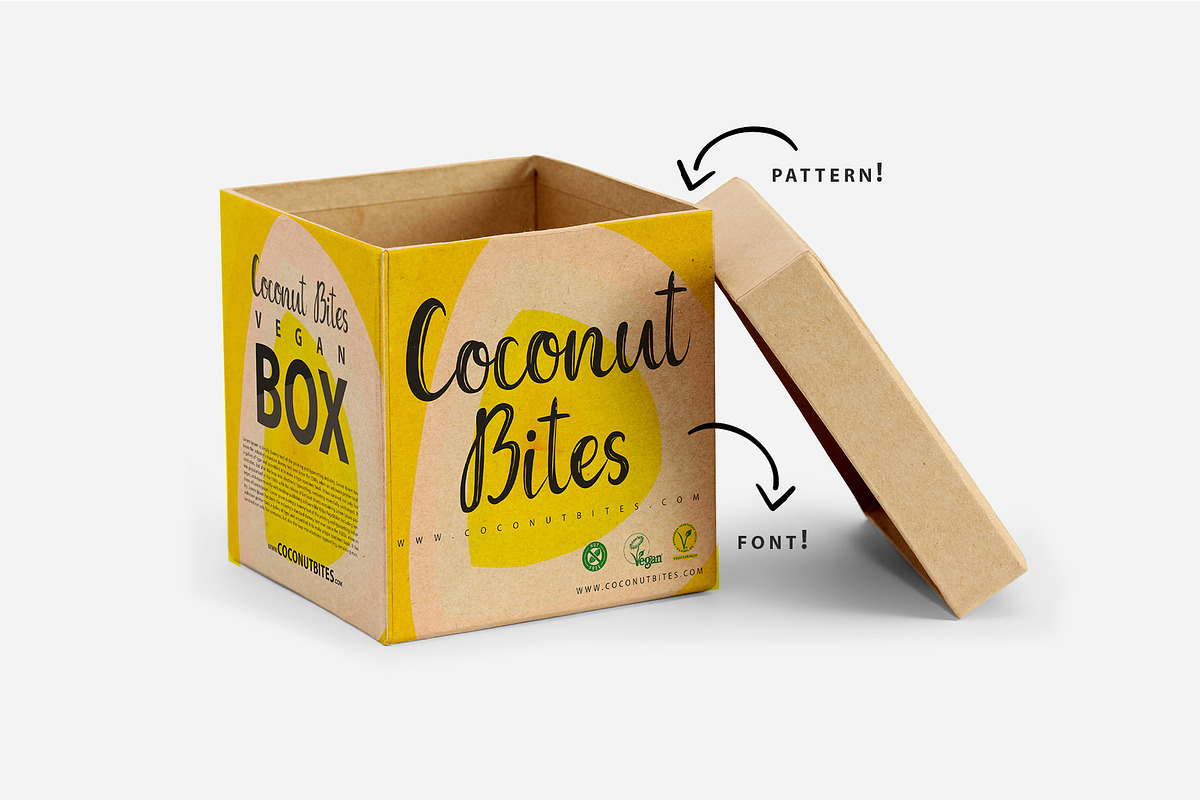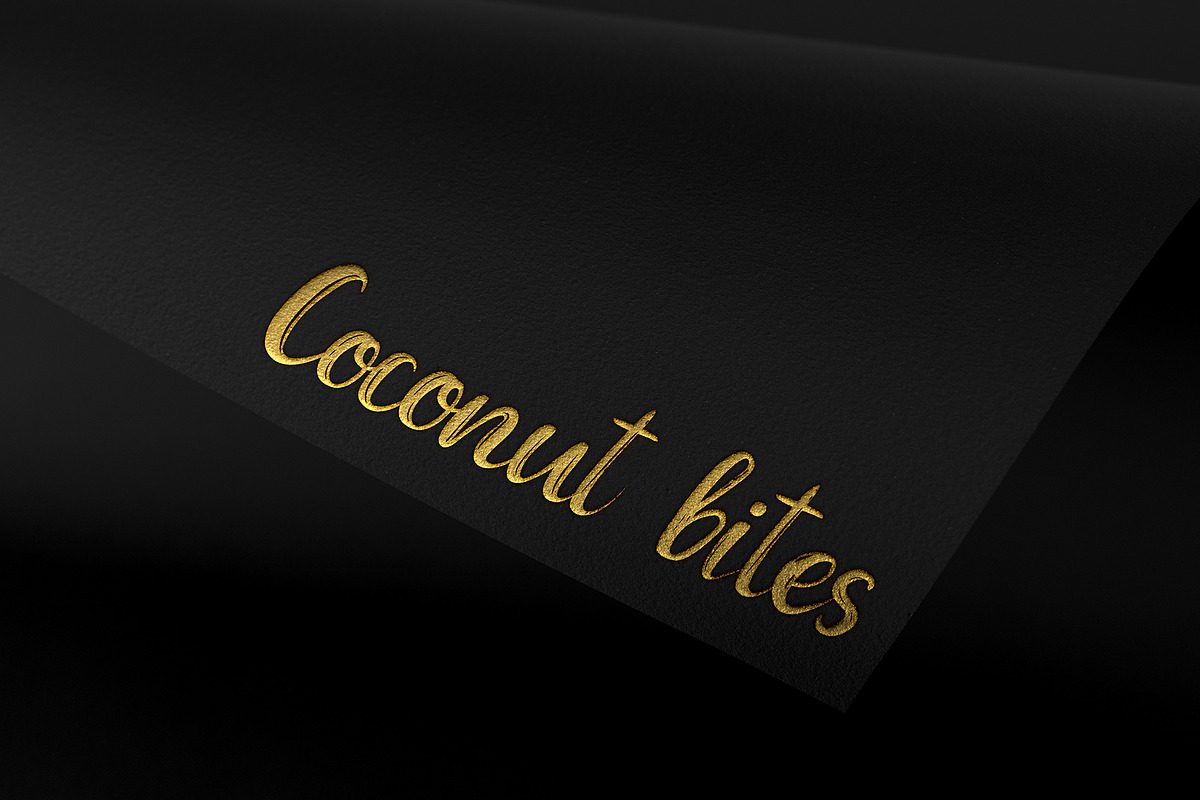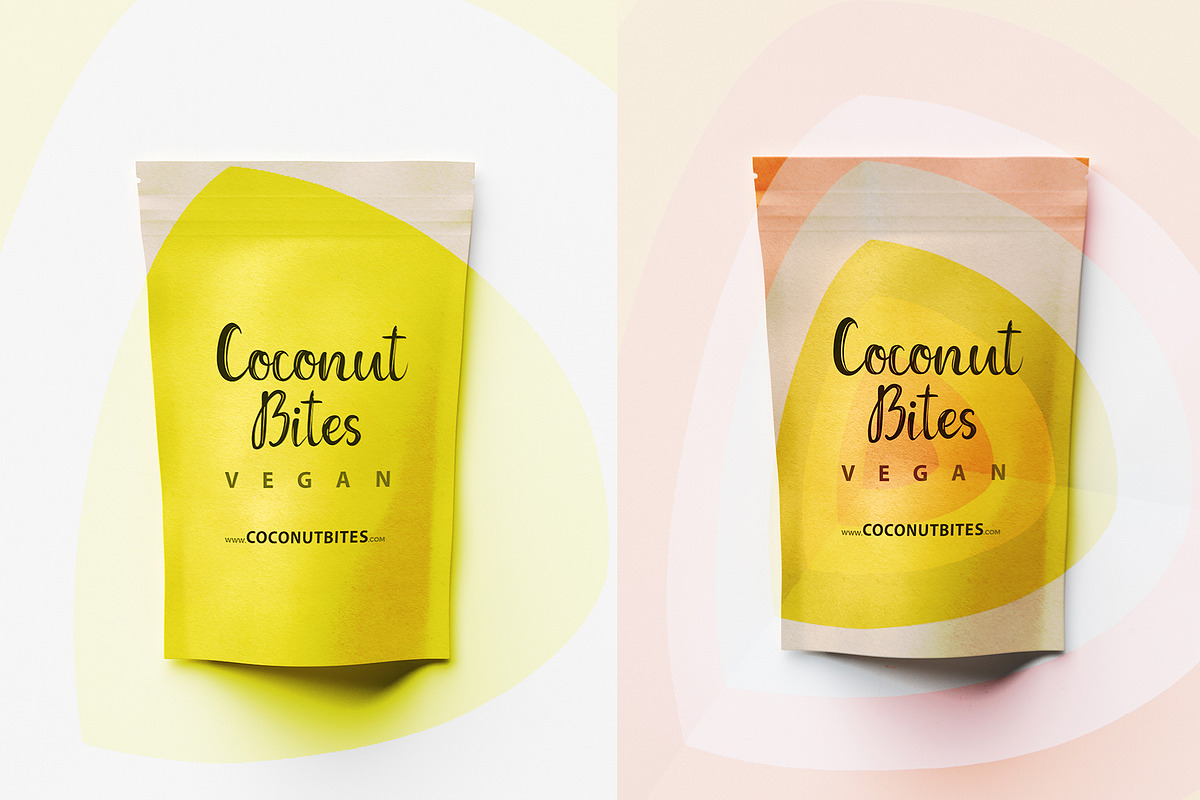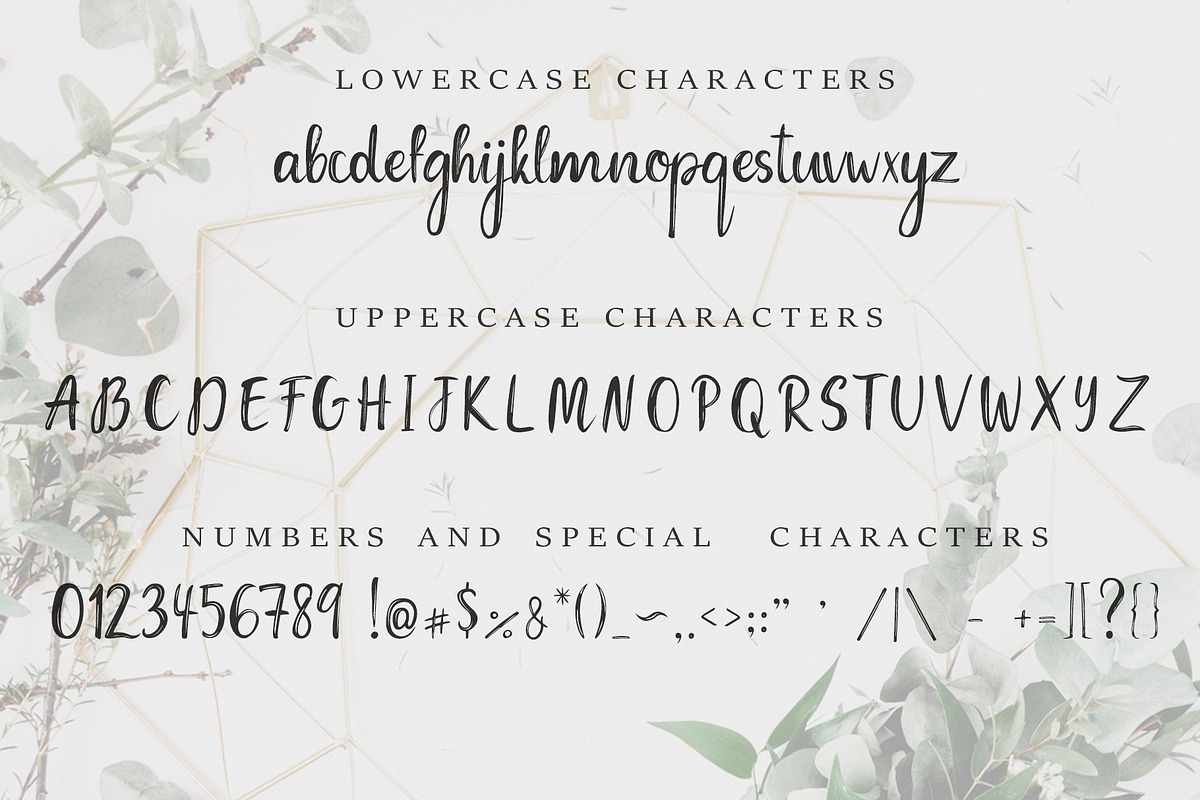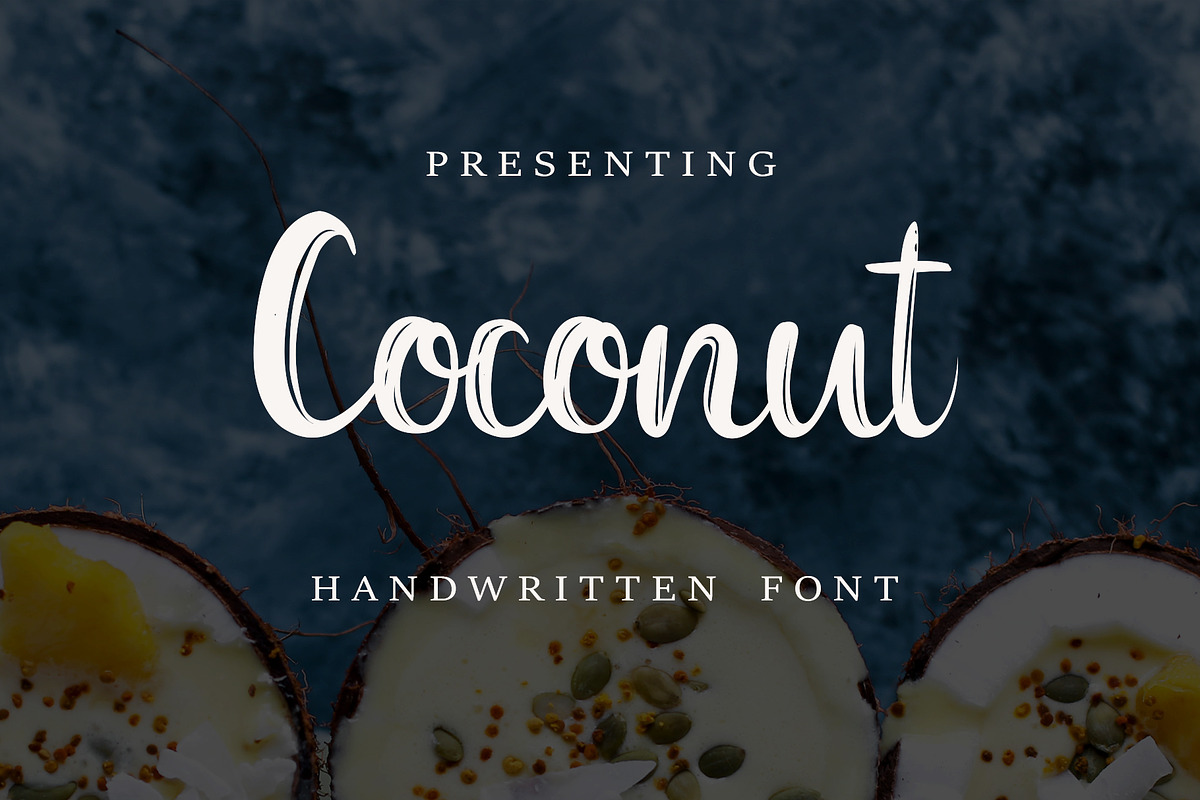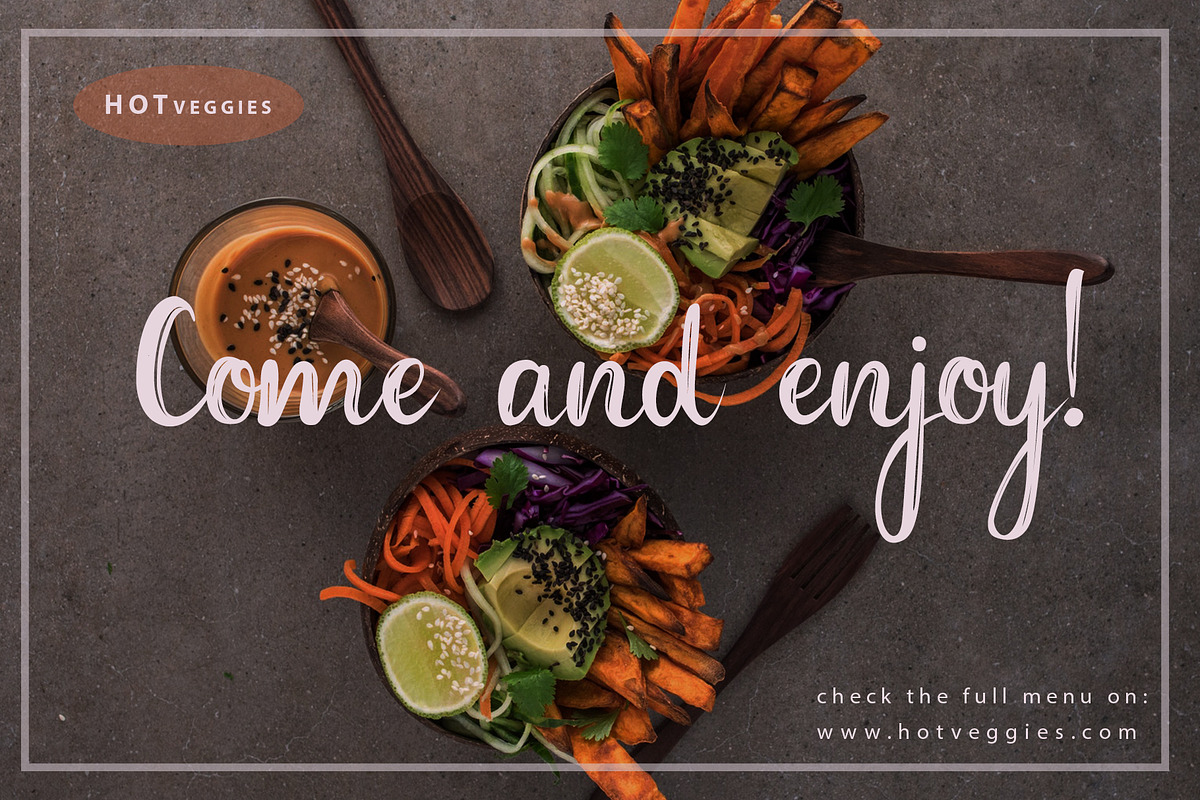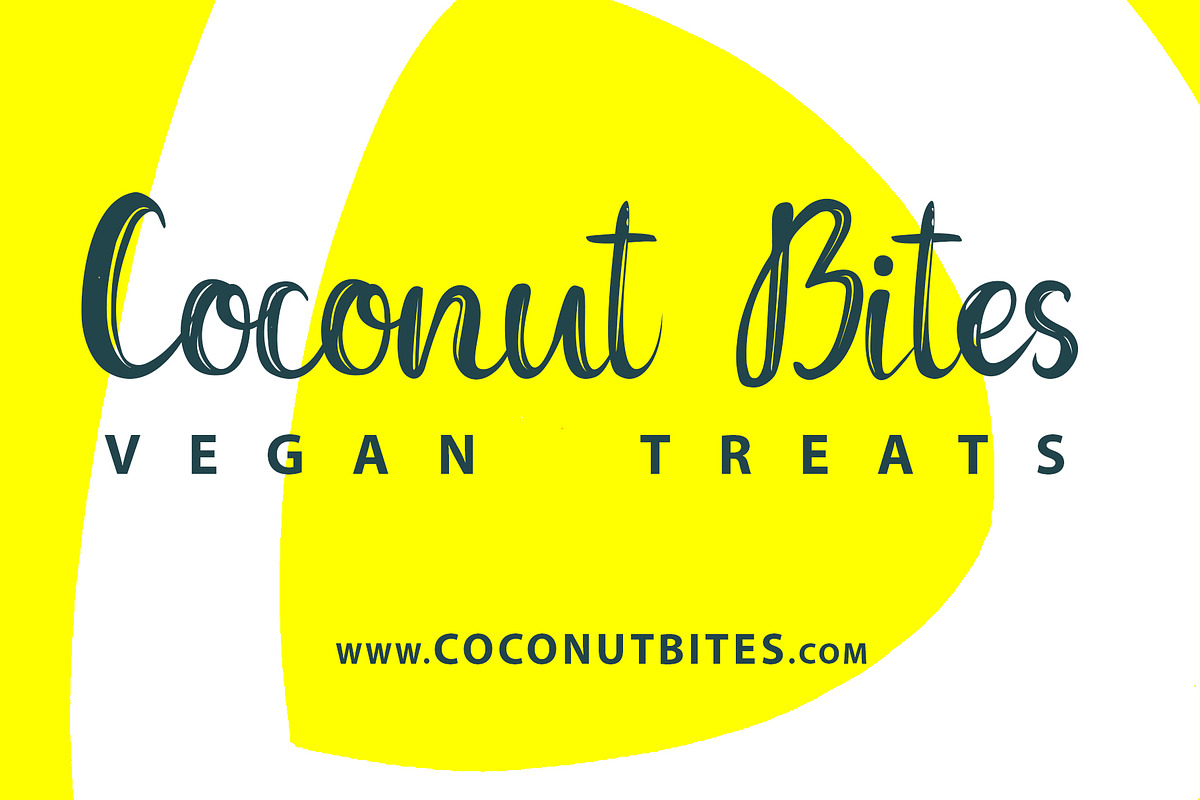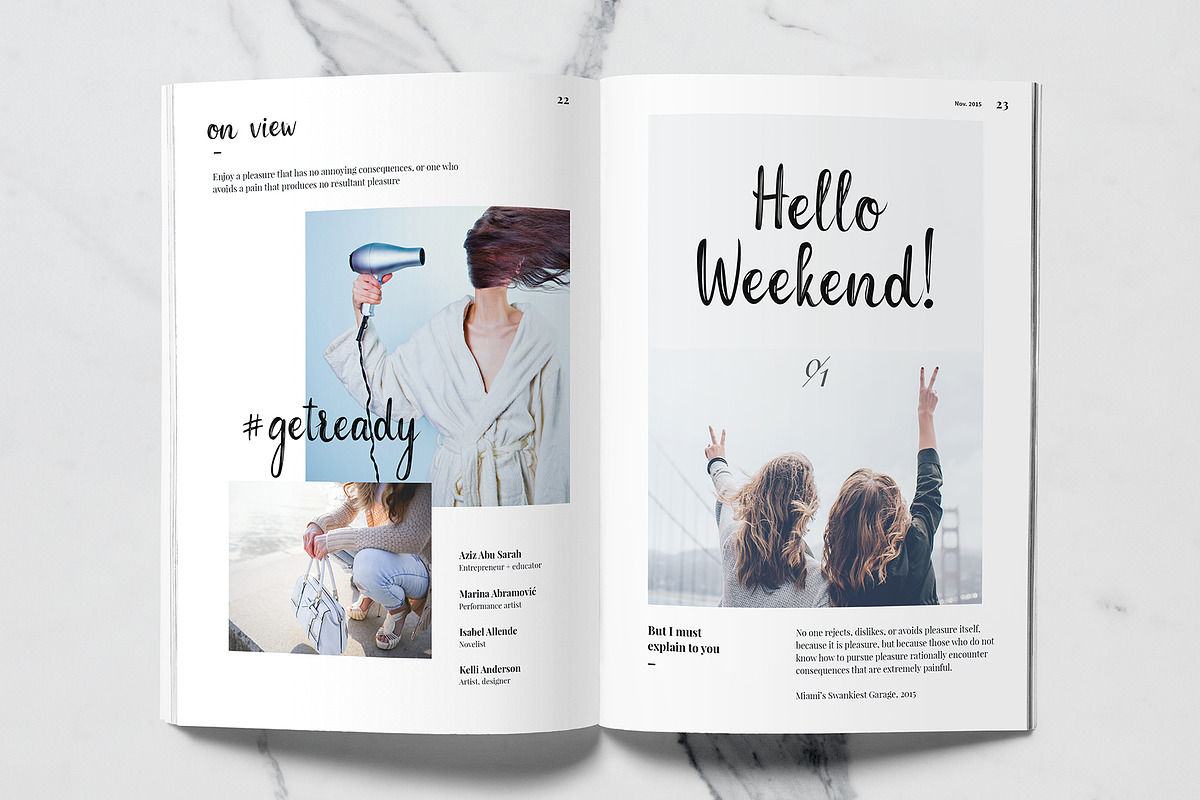
Coconut Font & Abstract Patterns
Introducing Coconut Handwritten Font, with its awesome texture!
The font is carefully designed to work together in harmony to create brilliant typographic designs.
It is ideal for packaging design, greeting cards, labels, photography overlays, advertisements / social media posts, t-shirt design, branding design, and magazines!
Coconut Handwritten Font - A handwritten script font containing upper & lowercase characters, numerals and a large range of punctuation
31 seamless VECTOR abstract patterns
- It comes with 31 vectorized abstract patterns that are perfect for backgrounds, packaging, and stationery.